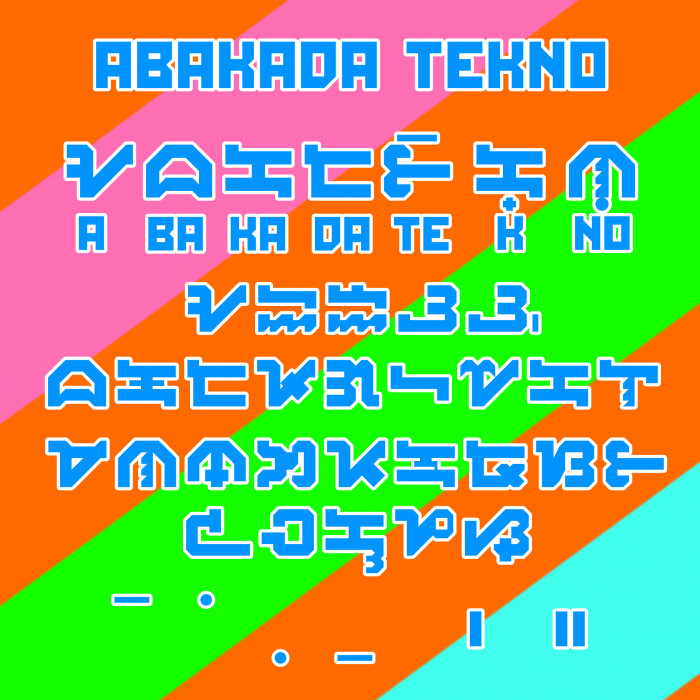
• Abakada Tekno, is a standardized baybayin. It is an Abugida or Alphasyllabary. The additional letters of C, F, J, Ñ, Q, R, V, X, and Z and additional vowels of O, and U to become modern baybayin
• The single latin letter B on your keyboard will become 'Ba' (ᜊ)
• If you want make a 'Be' and 'Bi', tap and hold the 'E' key, then press 'Ē' will appear a dash line on top with a character. For 'I' key, press and hold, then type 'Ï' key will make a dot on top with a character.
• If you want to make an 'Bo' and 'Bu' same thing with I and E key, tap and hold 'O' then press 'Ö' will appear a dot at the bottom with a character, for 'U' press and hold, then select 'Ū' will appear a dash line at the bottom with a character.
• If you want to make a single sound letter, hold 'S' key and you will see a german alphabet (ß) press it then you will see a plus or cross sign (+) and it will become a 'B' sound (ᜊ᜔)
• For, 'Ñ' tap and hold the 'N' key, then for 'Ng' tap and hold C and then press 'Ç' key and it will a character (ᜅ)
this is cool, it looks arcade/Minecraft-themed